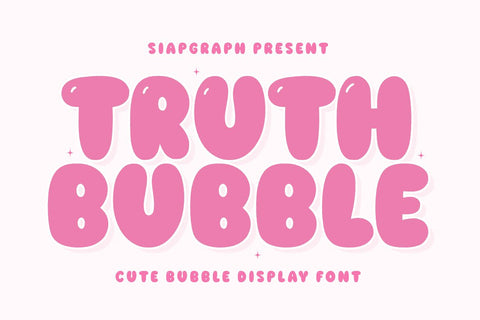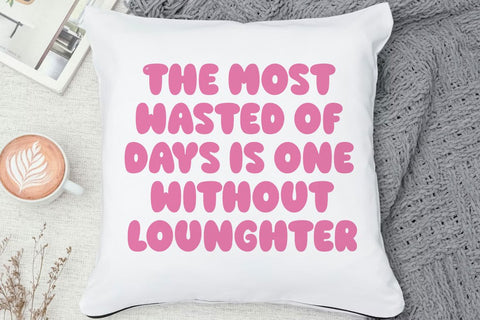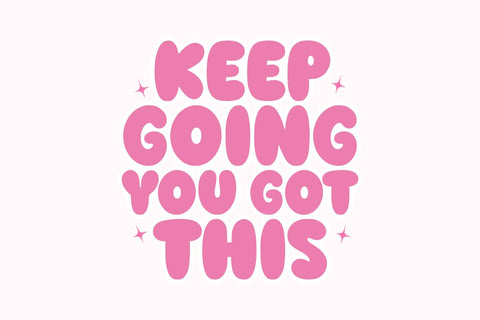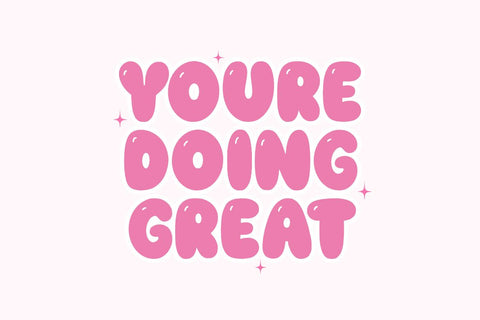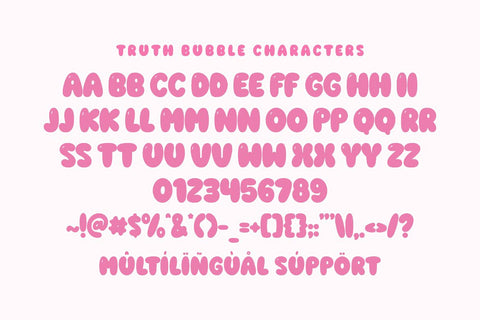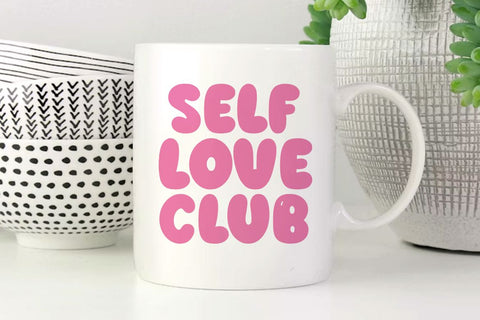
Truth Bubble - Cute Bubble Font
Truth bubble is a cute bubble display font designed to bring a soft, friendly, and playful atmosphere to your creative projects. Featuring thick, rounded characters with delicate glossy highlights, this typeface captures a joyful, bubbly aesthetic that is both modern and approachable. Its bold, clean construction is specifically optimized for the crafting community, ensuring a seamless and easy cutting experience for all your vinyl projects, sublimation, and digital designs.
Perfect for: creating high-converting SVG cut files, personalized stickers, kids' party decorations, adorable nursery wall art, custom t-shirt designs, and playful social media branding. Whether you are a professional Print on Demand (POD) seller or a dedicated DIY enthusiast, this font offers the perfect balance of readability and whimsical charm for any project.
Great for holiday themes such as Birthdays, Summer parties, Children's Day, and Valentine's Day, adding a sweet, optimistic, and bubbly personality to your seasonal design collections!